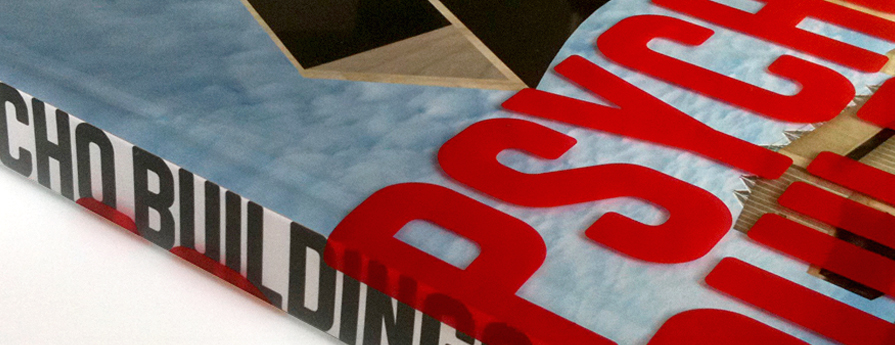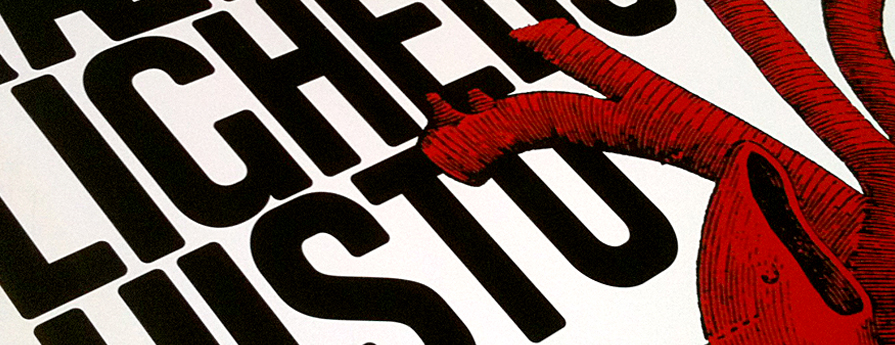
Aveny-T
Aveny-T is inspired by the modernist-era and avant-garde lettering from the early twentieth century. The font was designed principally as a poster typeface, in capital letters only, for the Danish theatre Aveny-T in 2000. This newly updated font family includes a full character set, featuring lower-case letters and glyphs for modern day use, designed across numerous weights.
Hayward Gallery Psycho Buildings catalogue, detail. Design A2/SW/HK, 2008
Hayward Gallery Laughing in a Foreign Language catalogue, detail. Design A2/SW/HK, 2008
Source material, letterpress woodtype from the A2/SW/HK archive